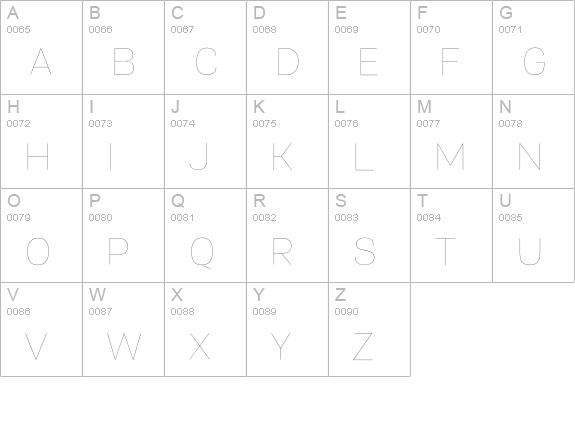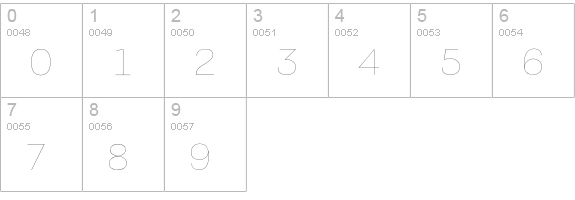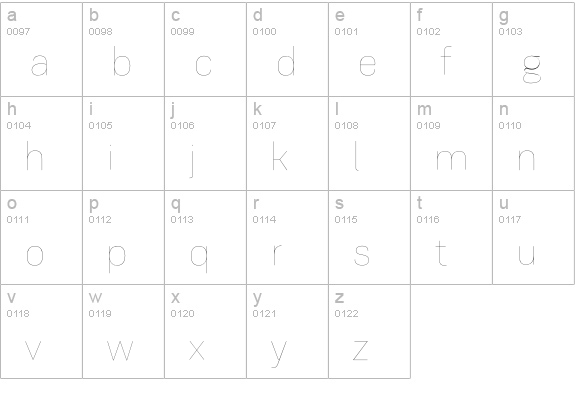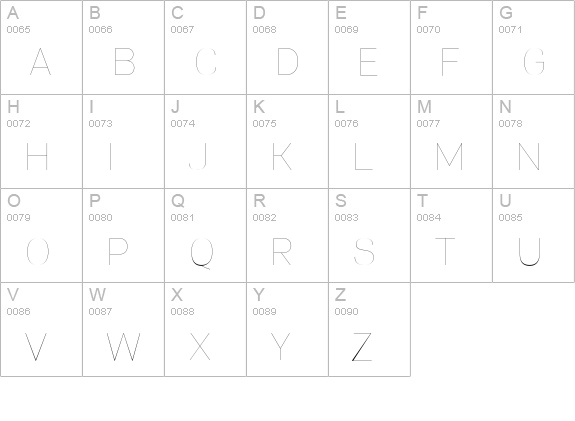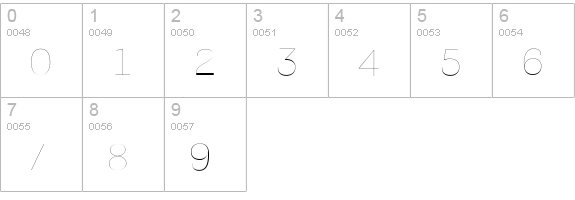
PFEncoreSansPro-Hairline is an exceptionally fine, almost invisible variant in the PFEncoreSansPro typeface family \xE2\x80\x94 well suited to high-end editorial, fashion, and luxury display use.
PFEncoreSansPro-Hairline is a modern and elegant font that exudes sophistication and minimalism. With its delicate and thin lines, this font is perfect for creating a sleek and refined look in your design projects. Whether you are working on branding, editorial design, or web graphics, PFEncoreSansPro-Hairline will add a touch of class and sophistication to your work. The best part about PFEncoreSansPro-Hairline is that it is completely free to use. Yes, you read that right - this stunning font is freely available for download at FontsMarket.com. So go ahead and elevate your designs with the timeless beauty of PFEncoreSansPro-Hairline, without breaking the bank. Download it today and add a touch of elegance to your projects.